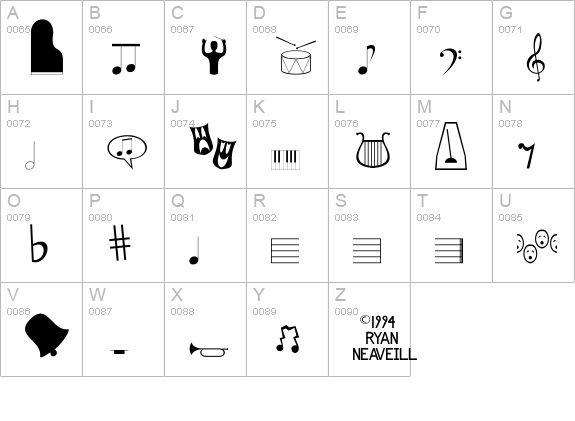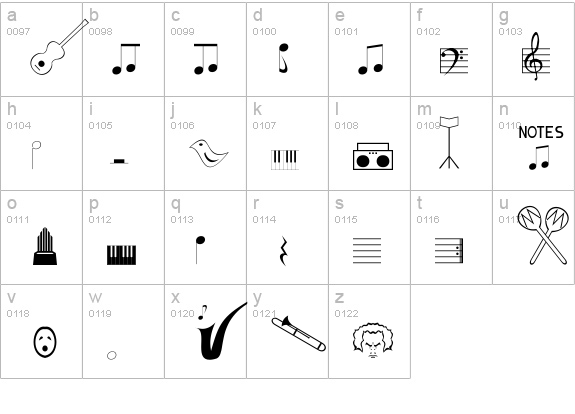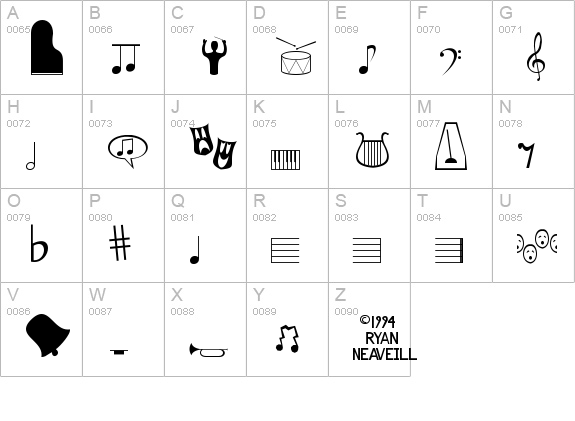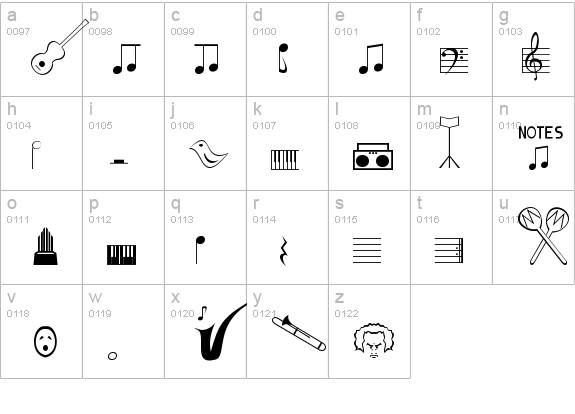
Introducing Music Fun font, a whimsical and lively typeface that is perfect for adding a touch of playfulness to your projects. With its fun and quirky design, Music Fun font is sure to bring a smile to anyone's face. Whether you're working on a party invitation, a children's book, or a music event poster, this font will add a joyful and energetic vibe to your designs. The best part about Music Fun font is that it is completely free to download! Yes, you read that right - this delightful font is available for free at FontsMarket.com. So go ahead and let your creativity run wild with Music Fun font, and bring a sense of fun and cheer to all your design projects.